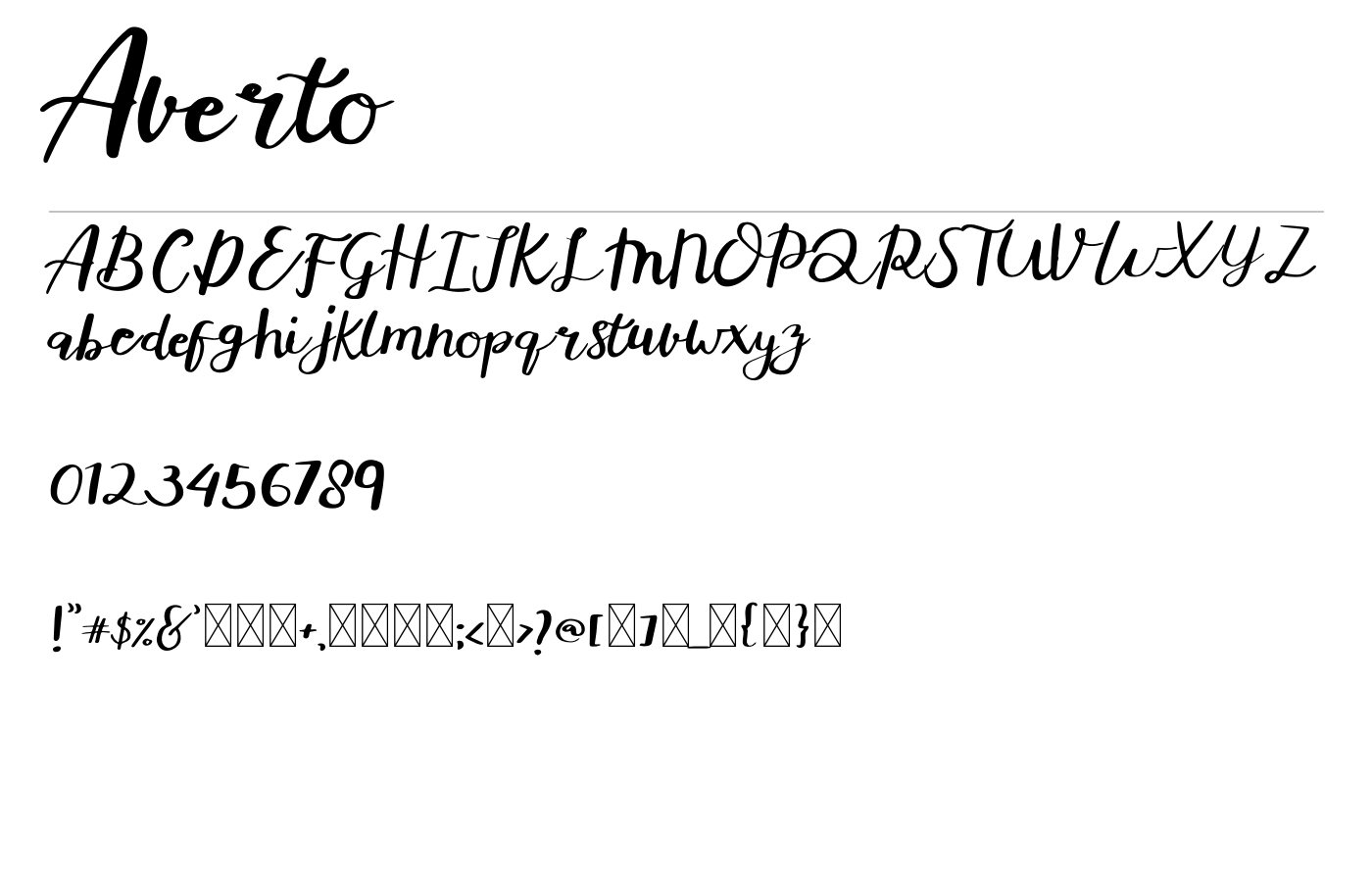
Averto is a graceful script font with a smooth, flowing style that mimics elegant handwriting. Its medium weight and balanced letterforms give it a refined yet approachable feel, making it ideal for invitations, branding, and stylish headlines where a personal, artistic touch is desired. This font works well for projects seeking a classy and modern handwritten aesthetic.
Averto Font
| Font family | Averto Font |
| Designer | Robi Wahyudi |